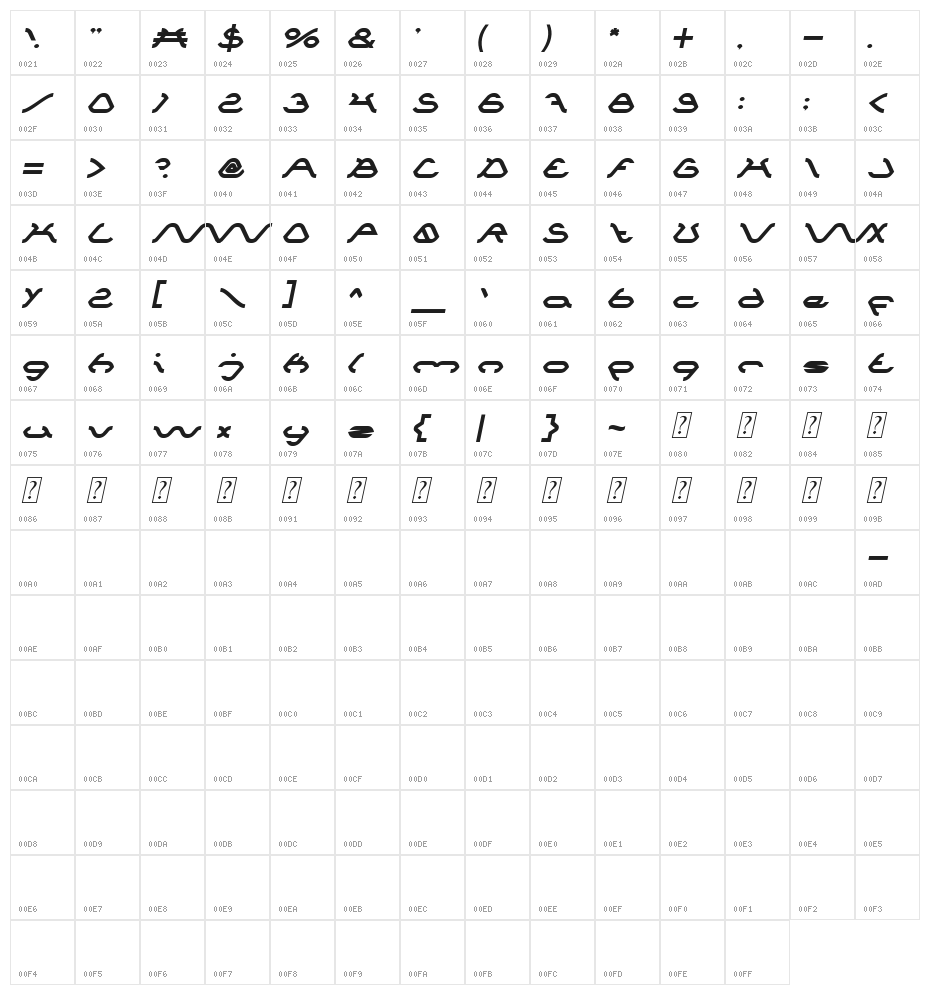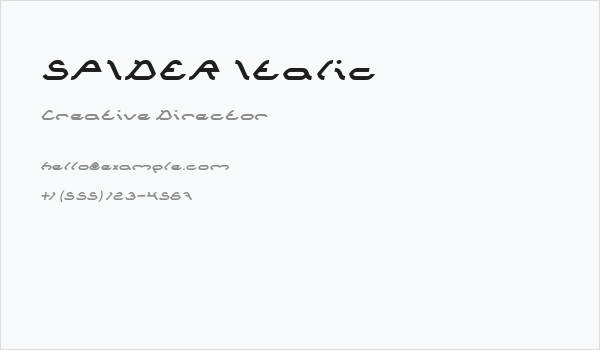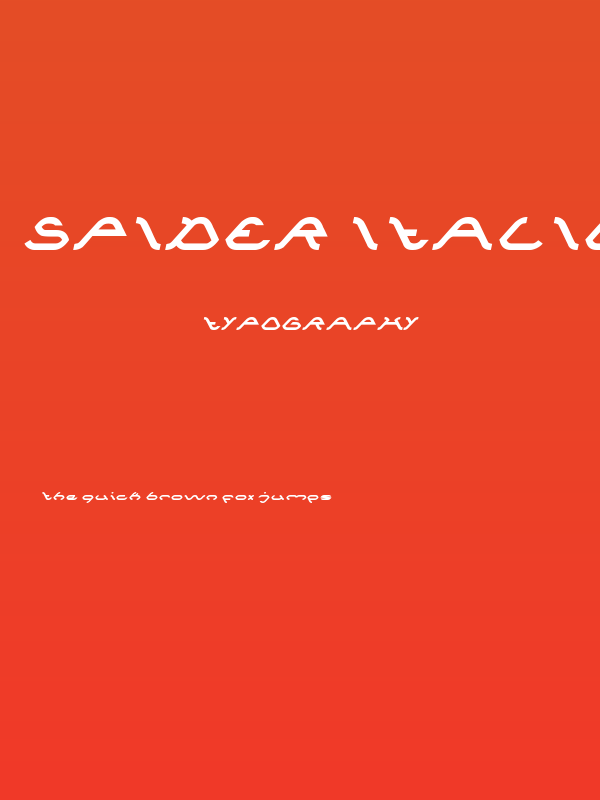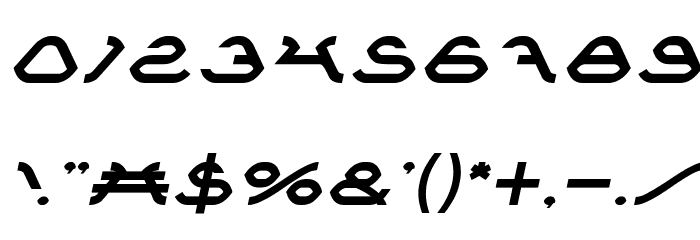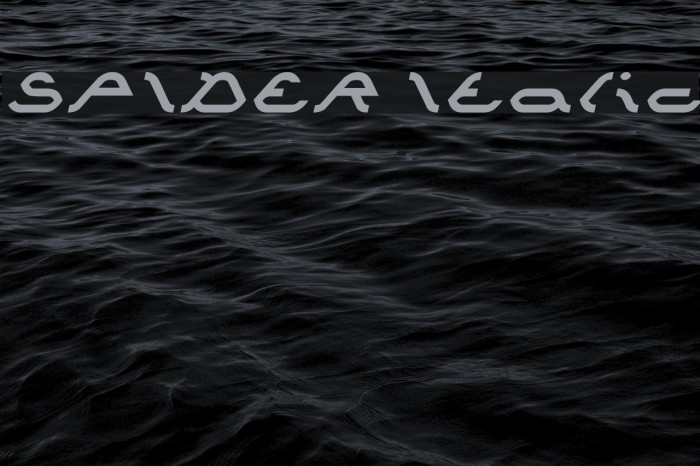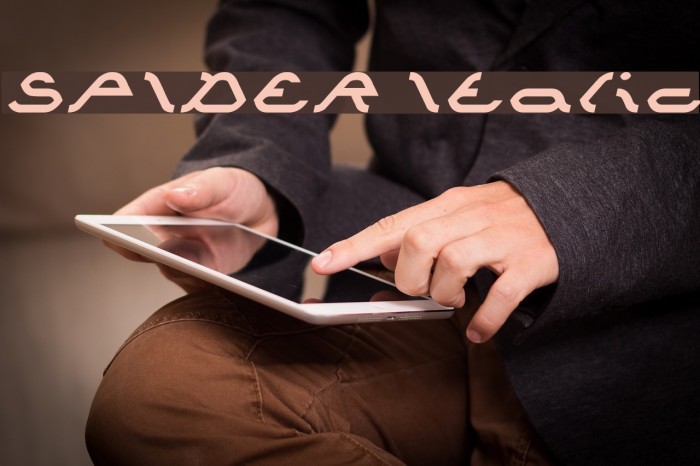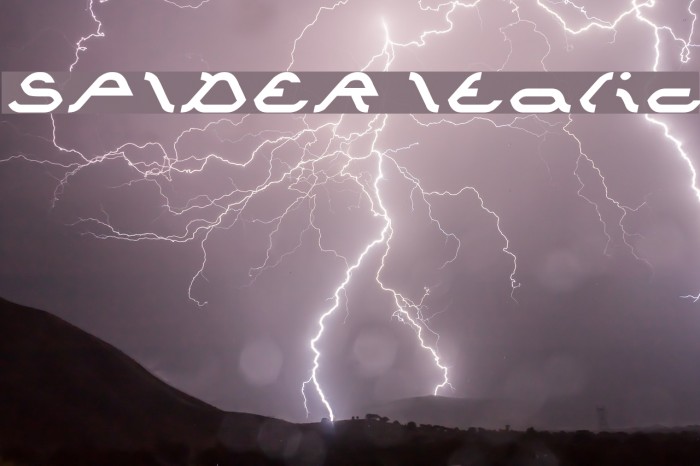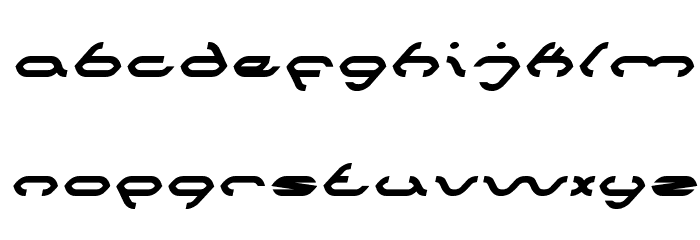
SPIDER Italic Font
SPIDER Italic Description
This font features a unique, futuristic design with a slanted, italicized style. The characters are bold and have a distinct, angular appearance, giving them a dynamic and energetic feel. The uppercase and lowercase letters maintain a consistent style, with sharp edges and a streamlined look. Numbers and special characters follow the same design principles, ensuring a cohesive appearance across all elements. The font's modern aesthetic makes it suitable for projects that require a cutting-edge, tech-inspired look.
SPIDER-ITALIC UPPERCASE
SPIDER-ITALIC LOWERCASE
SPIDER-ITALIC OTHER CHARS
| Proposed Projects | Ideal for technology branding, sci-fi movie posters, video game titles, and modern graphic design projects. |